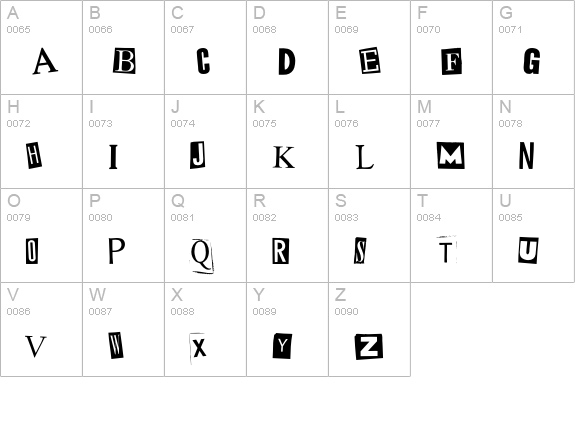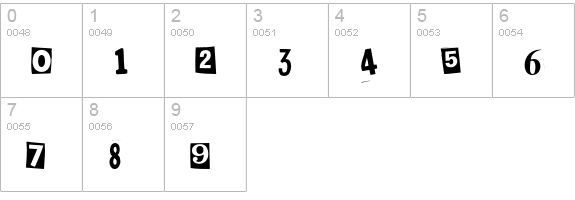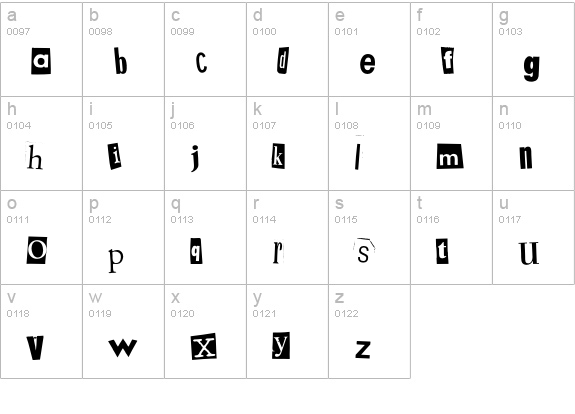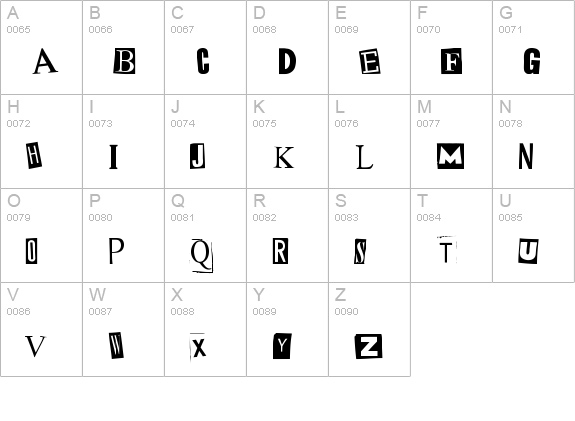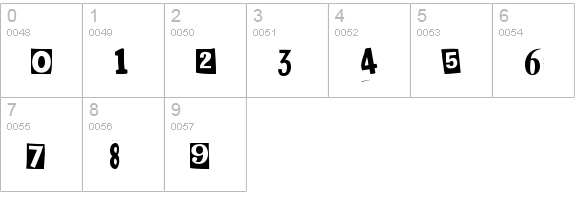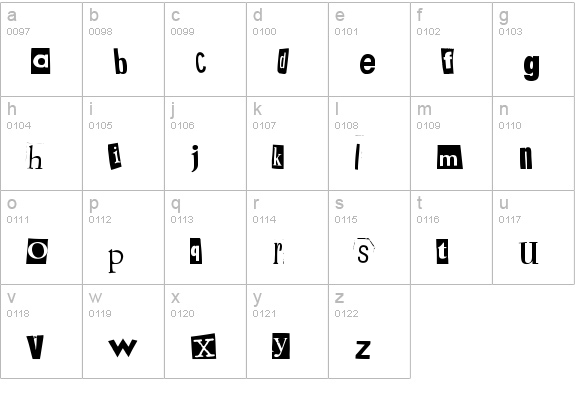
MysteryEF-Mixed Font Details
Introducing the captivating MysteryEF-Mixed font - a versatile and enigmatic typeface that will add a touch of intrigue to your design projects. This font features a unique blend of mystery and elegance, making it perfect for a wide range of creative applications. With its stylish curves and mysterious aura, MysteryEF-Mixed font is sure to make a statement. What's even better is that MysteryEF-Mixed font is available for free download at FontsMarket.com, providing you with easy access to this exceptional typeface for all your design needs. Whether you're working on a poster, branding, or any other project that calls for a touch of mystery, MysteryEF-Mixed font is the perfect choice. Download it now and unleash your creativity with this captivating font.